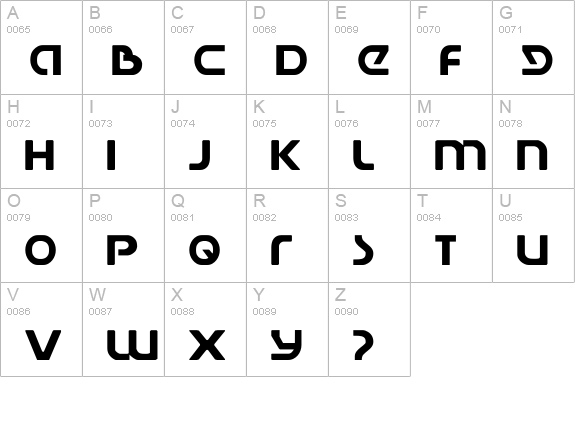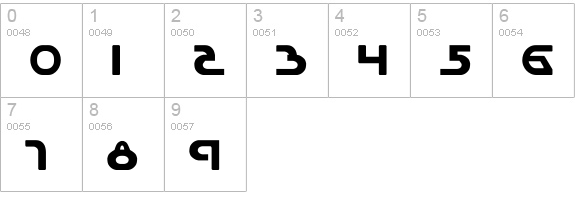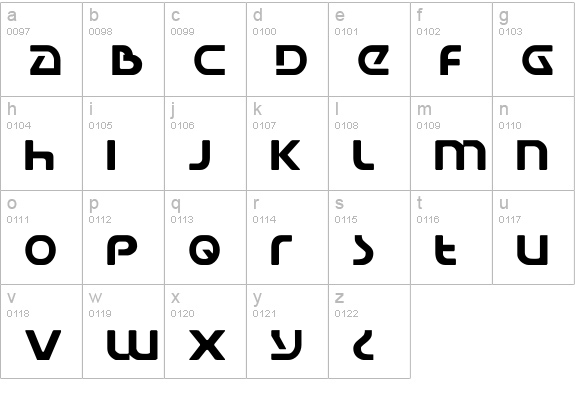
Universal Jack Font Details
Universal Jack is a remarkable font that effortlessly combines elegance and versatility. With its sleek and modern design, this font is perfect for a wide range of projects, from branding and logo design to editorial layouts and web design. Featuring clean lines and a refined aesthetic, Universal Jack exudes a sense of professionalism and sophistication. Each letter is meticulously crafted, ensuring a harmonious balance between form and function. Its timeless appeal makes it suitable for both contemporary and classic design styles. One of the most appealing aspects of Universal Jack is that it is available for free. Yes, you heard it right! This font can be freely downloaded at FontsMarket.com, allowing designers and creatives to enhance their projects without breaking the bank. The accessibility of Universal Jack ensures that anyone can incorporate it into their work, regardless of their budget or resources. Furthermore, Universal Jack offers a wide range of weights and styles, providing even more flexibility and creative possibilities. Whether you need a bold and impactful headline or a refined and elegant body text, this font has you covered. In addition to its aesthetic appeal and accessibility, Universal Jack also boasts excellent readability. The carefully designed letterforms ensure that each character is easily distinguishable, even at smaller sizes. This makes it an excellent choice for both print and digital mediums, ensuring that your message is conveyed clearly and effectively. So why wait? Embrace the beauty and functionality of Universal Jack today. Download it for free at FontsMarket.com and elevate your designs to new heights. Whether you are a professional designer or a hobbyist, this font is sure to impress and inspire.